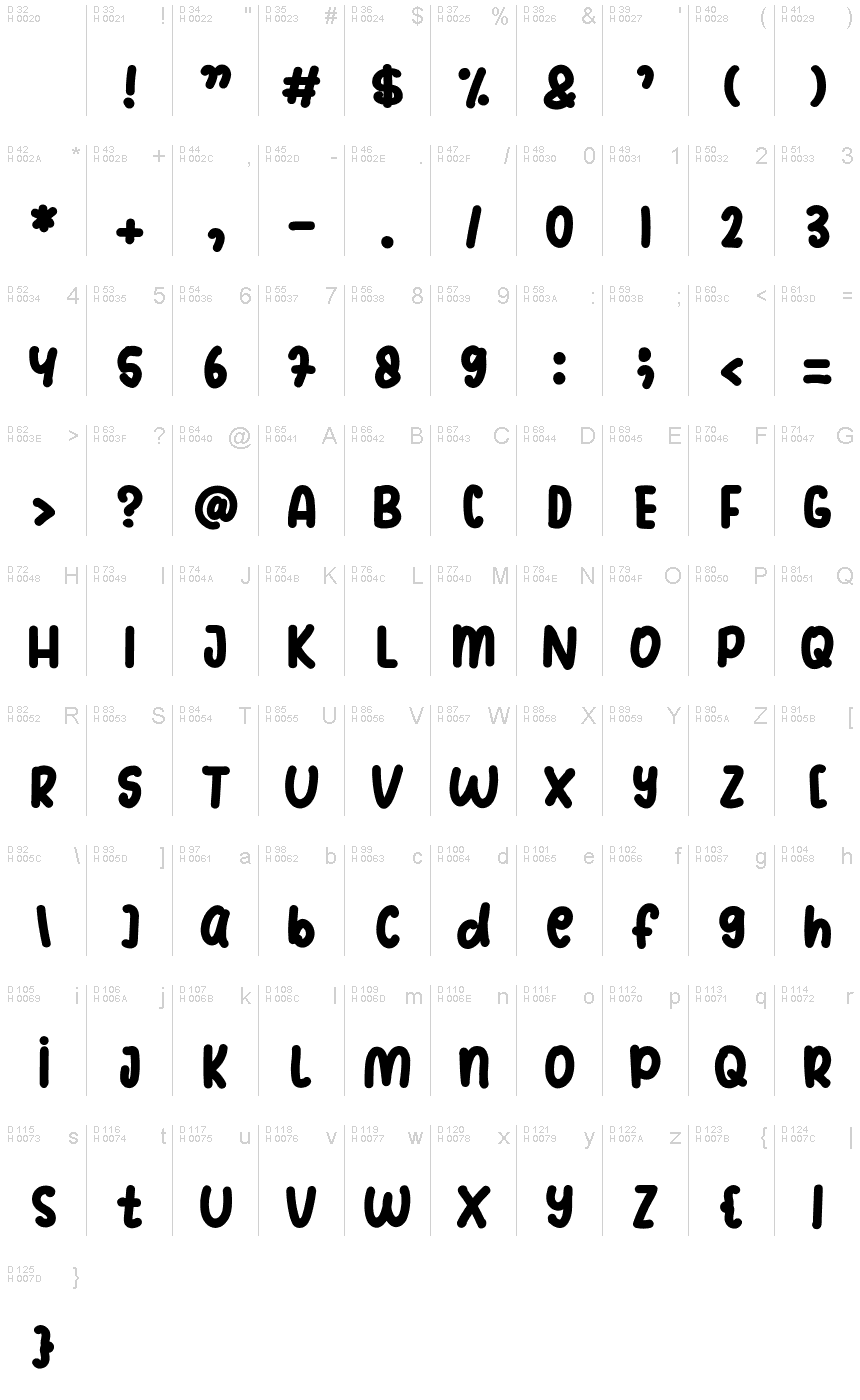
Fruits Donut
Fruits Donut by Letterday Studio is a playful and vibrant display font, perfect for projects looking to add a touch of whimsy. With its bold and semi-bold weight, this cartoon-inspired typeface is ideal for headlines, logos, and branding materials. Imagine using Fruits Donut for a children's book cover or website design, or even for a bakery's signage. The possibilities are endless with this fun and eye-catching font. Let Fruits Donut bring some sweetness to your next project!